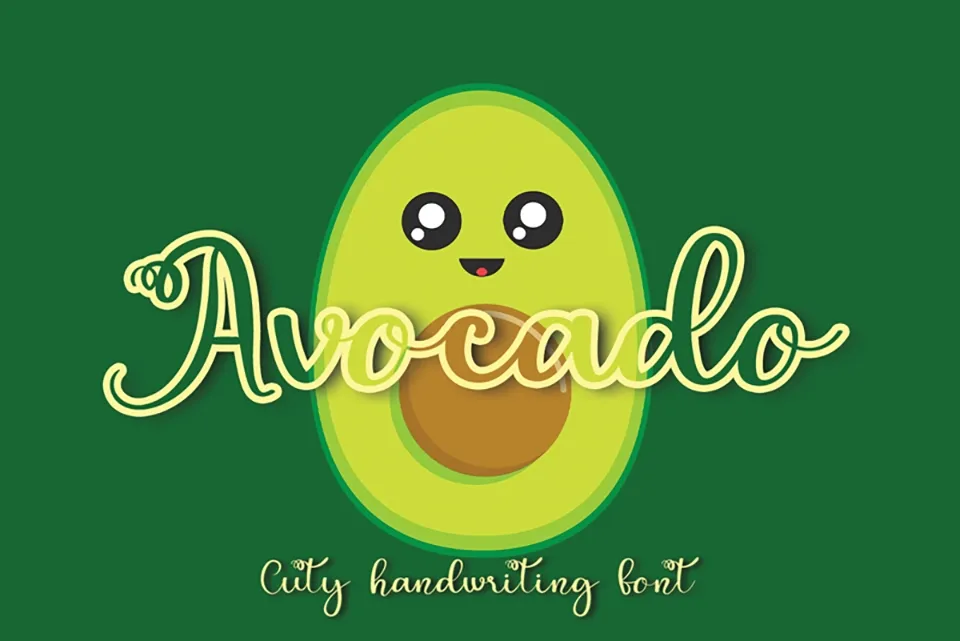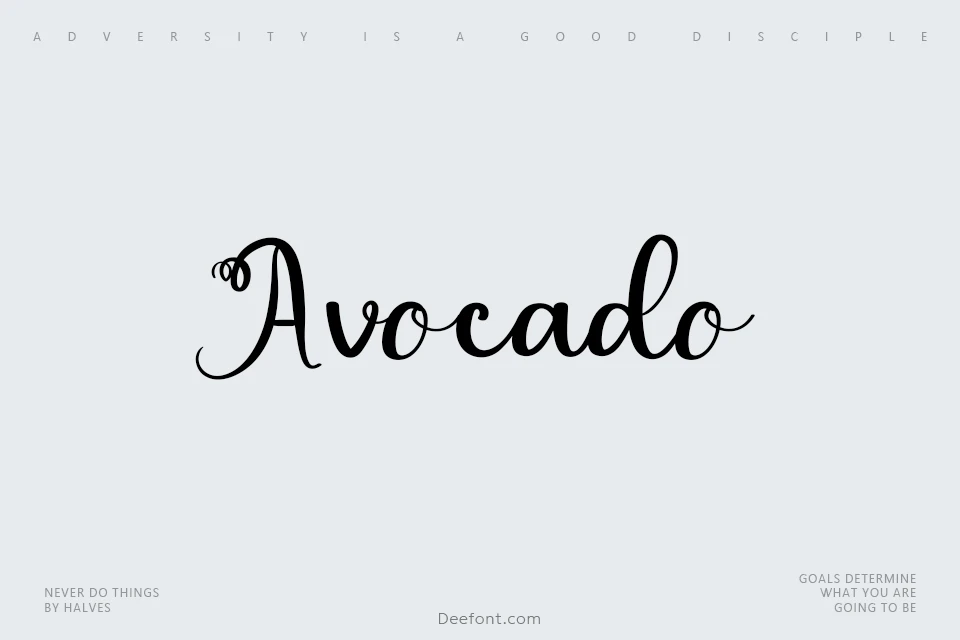
Avocado Font
Avocado Font is a playful, hand-drawn script font featuring a cute and friendly style, perfect for creative projects that need a touch of whimsy. Its smooth curves and lively character make it ideal for branding, packaging, invitations, and social media graphics, especially where a fun and approachable look is desired. The font’s handwritten feel and decorative swashes add personality, making your text stand out in both digital and print designs.